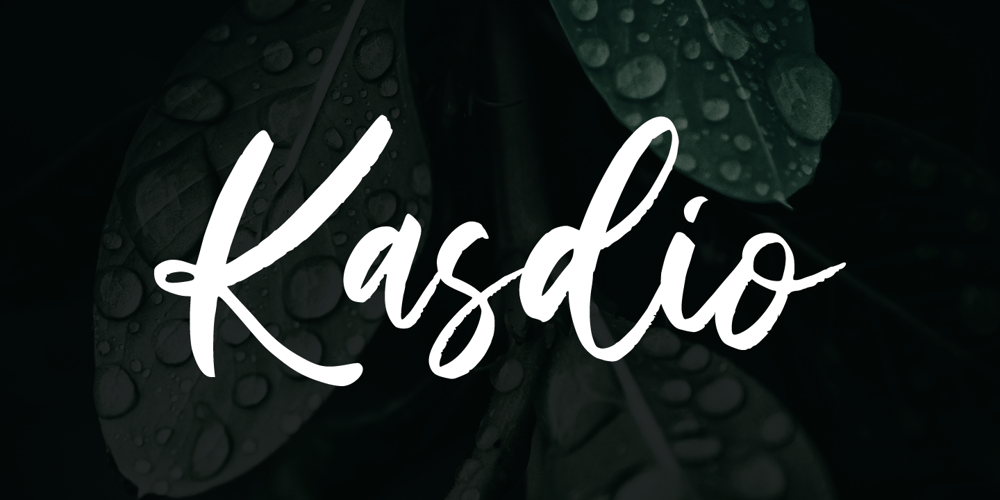
Kasdio
Kasdio font
Kasdio Font Family was designed by Donis Miftahudin and published by Din Studio. Kasdio contains 1 styles and family package options. Kasdio is a casual brush font. Made for any professional project branding. Every letter has a unique and beautiful touch.Features: Beautiful Ligatures PUA Encoded Multilingual Support Numerals and Punctuation Thank you for downloading premium fonts from DIn Studio